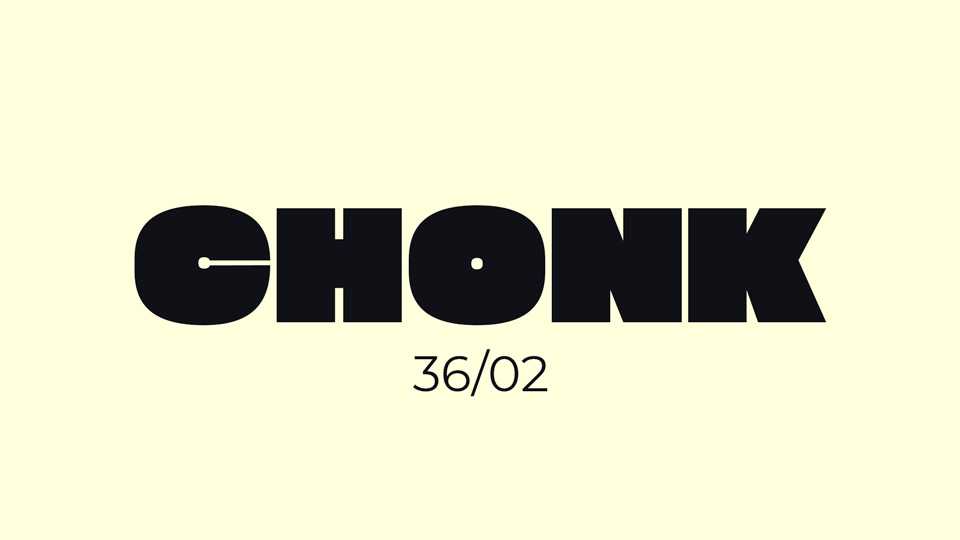
Download Chonk font, an ultra-heavy weight display typeface for creating impact. Works best for impressive headlines, but also great for packaging, branding and poster design.